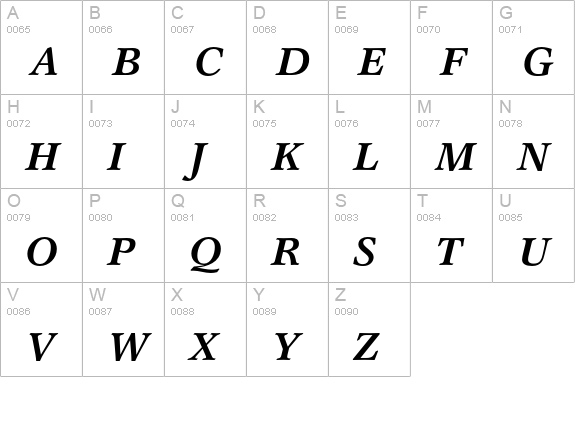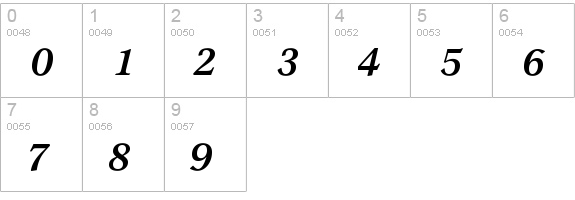
Garth Graphic Bold Italic Font Details
Garth Graphic Bold Italic is a strong, high-contrast, italic variant in the Garth typeface family \xE2\x80\x94 well suited to headlines, attention-grabbing titles, and strong calls-to-action.
Garth Graphic Bold Italic font is a striking and modern typeface that exudes confidence and sophistication. Its bold and italic style adds a touch of flair to any design project, making it perfect for headlines, titles, and branding materials. The sleek lines and sharp edges of Garth Graphic Bold Italic font give it a contemporary and edgy look, while still maintaining a sense of elegance and professionalism. What sets Garth Graphic Bold Italic font apart is not only its stunning aesthetics but also the fact that it is available for free download at FontsMarket.com. This means that you can easily access and use this high-quality font in your projects without any cost involved. Whether you're a graphic designer, web developer, or just someone looking to enhance their creative work, Garth Graphic Bold Italic font is a fantastic choice that won't break the bank. Download it today and elevate your designs with this exceptional typeface.